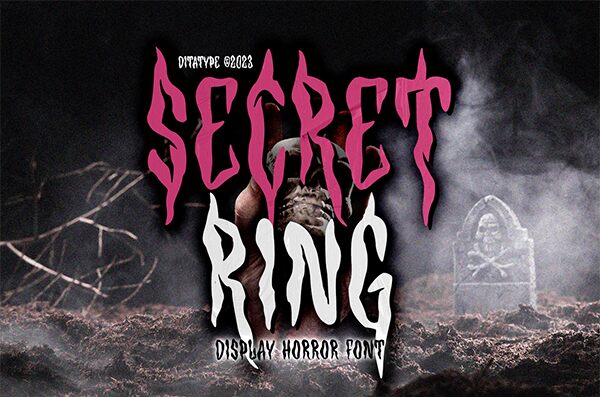
Unleash the captivating essence of Secret Ring, a mesmerizing display font crafted by the renowned designer Ditatype. This Halloween-inspired creation exudes an aura of distortion and intrigue, with its condensed silhouette and bold, distinctive strokes. The font's haunting allure captivates the eye, evoking a sense of mystery and the macabre, perfect for elevating the mood of any spooky or avant-garde design project.
Secret Ring's versatility shines through, making it a versatile choice for a wide range of applications. From eye-catching event posters and album covers to chilling book covers and horror-themed packaging, this font's powerful presence commands attention and sets the tone for a truly unforgettable visual experience. Embrace the dark allure of Secret Ring and let its unique character elevate your creative visions.